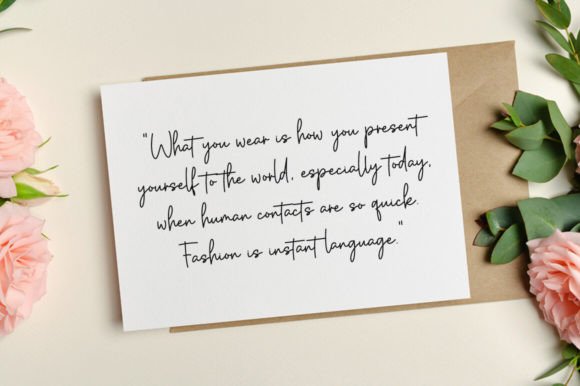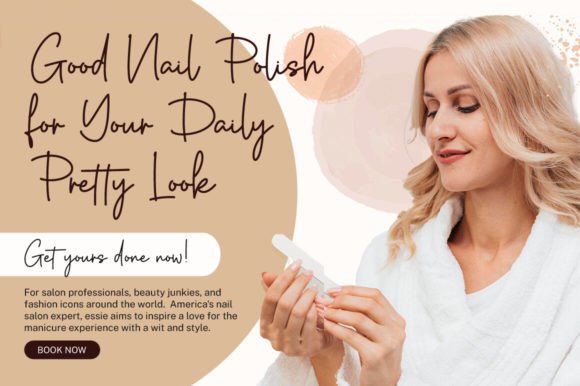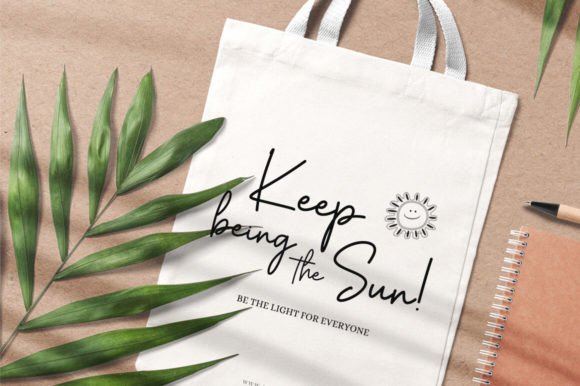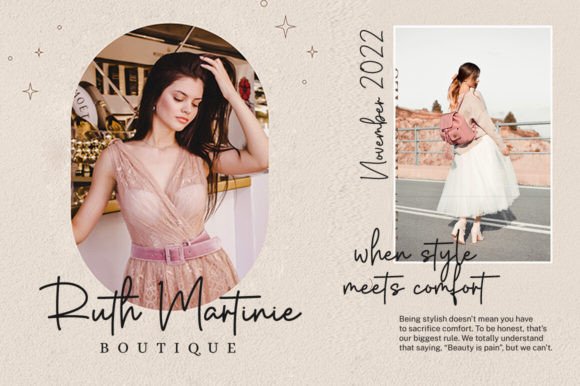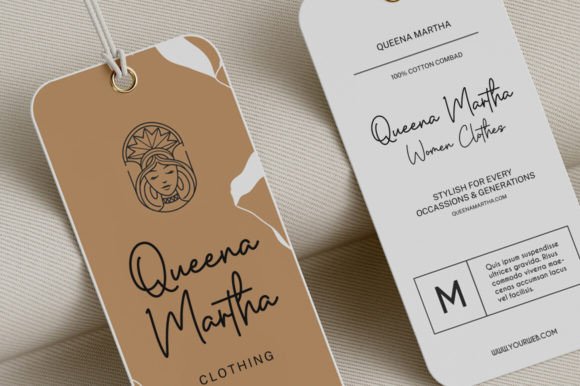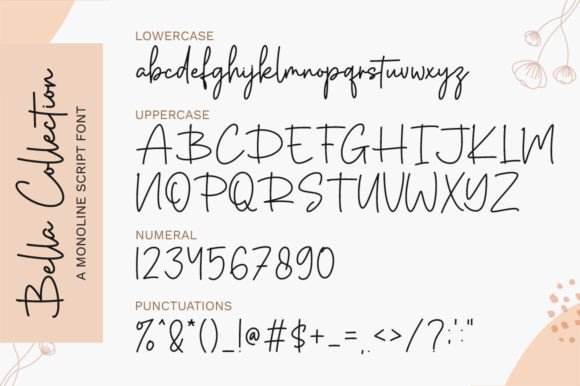
The Bella Collection Font: Elevate Your Designs with Elegance
I’ll never forget the time I was working on a fashion branding project, and my client asked me to create a logo that exuded elegance and sophistication. I spent hours scouring the internet for the perfect font, but nothing seemed quite right. That was until I stumbled upon the Bella Collection font. With its smooth curves and beautiful, well-balanced script, it was love at first sight! ✨ In this article, I’ll share my experience with the Bella Collection font, its features, and how to make the most of it in your designs.
A Personal Review of Bella Collection
- ✨ Smooth curves and elegant lines: The Bella Collection font boasts a beautiful, flowing script that’s perfect for fashion branding, editorial designs, and more.
- ✅ Well-balanced and legible: The font is easy to read, even at smaller sizes, making it versatile for various design applications.
- 💫 OpenType features and glyphs: The Bella Collection font comes with a range of OpenType features, including stylistic alternates, swashes, and ligatures, allowing for endless creativity.
While the Bella Collection font is stunning, there are a few things to keep in mind: 🤔
- ⚠️ Limited use in body text: Due to its script nature, the Bella Collection font may not be the best choice for lengthy body text. It’s better suited for headings, titles, or short paragraphs.
- ⚠️ Requires careful kerning: As with any script font, kerning can be a bit tricky. Take the time to adjust the letter spacing to ensure your text looks polished.
The Story Behind Bella Collection
Rumor has it that the Bella Collection font was inspired by the elegant calligraphy of 18th-century Italian designers. 💫 The font’s creator, a talented type designer, sought to capture the essence of this classic style while infusing it with modern flair. The result is a font that’s both timeless and trendy.
Q: What type of designs is the Bella Collection font best suited for?
A: The Bella Collection font is perfect for fashion branding, editorial designs, and any project that requires a touch of elegance and sophistication.
Q: Does the Bella Collection font come with OpenType features?
A: Yes, the Bella Collection font includes a range of OpenType features, such as stylistic alternates, swashes, and ligatures, allowing for endless creativity.